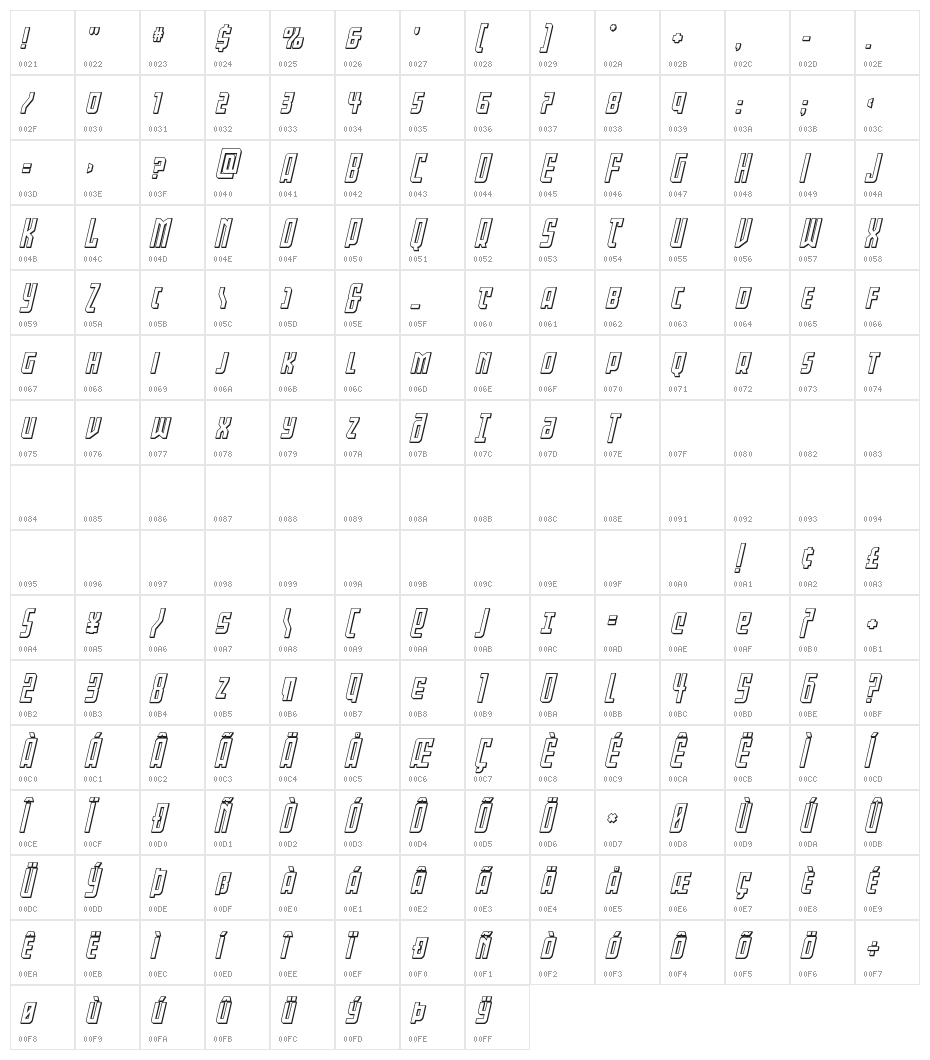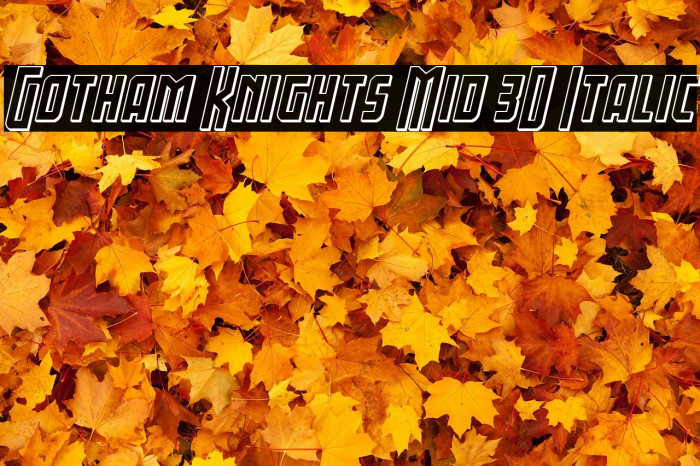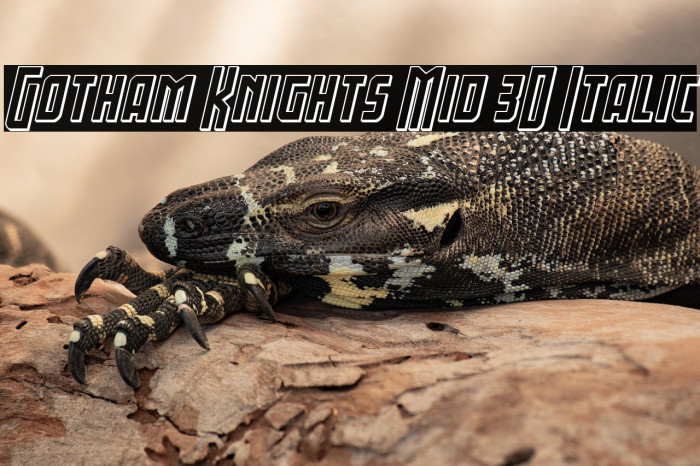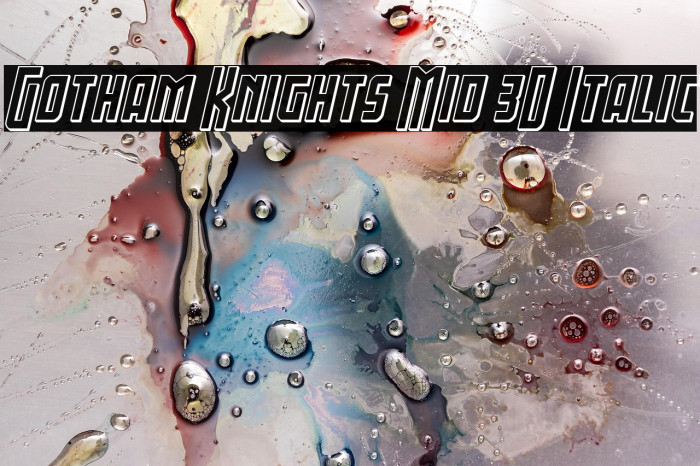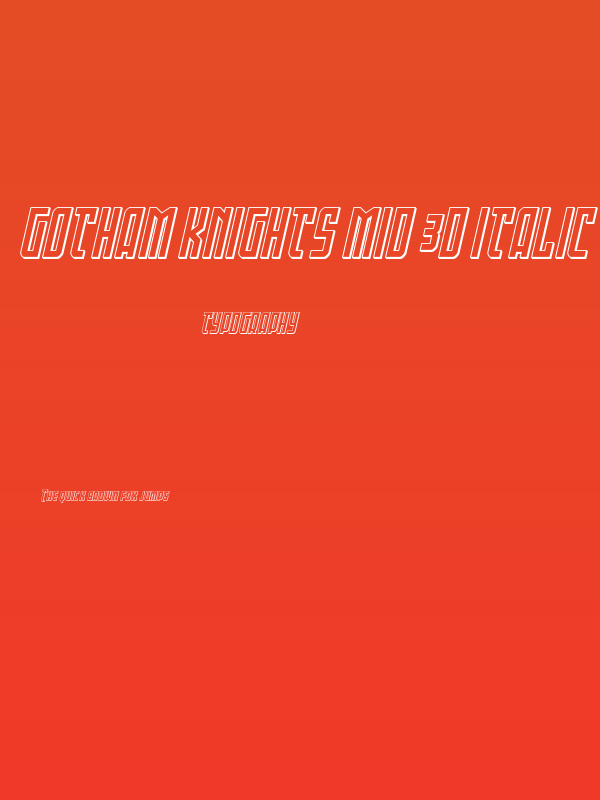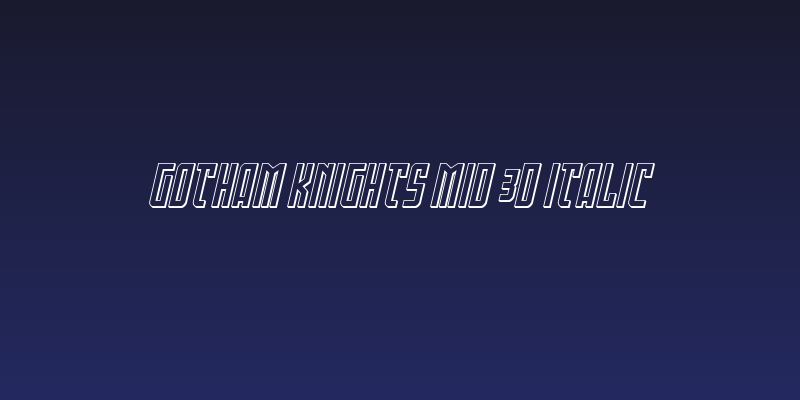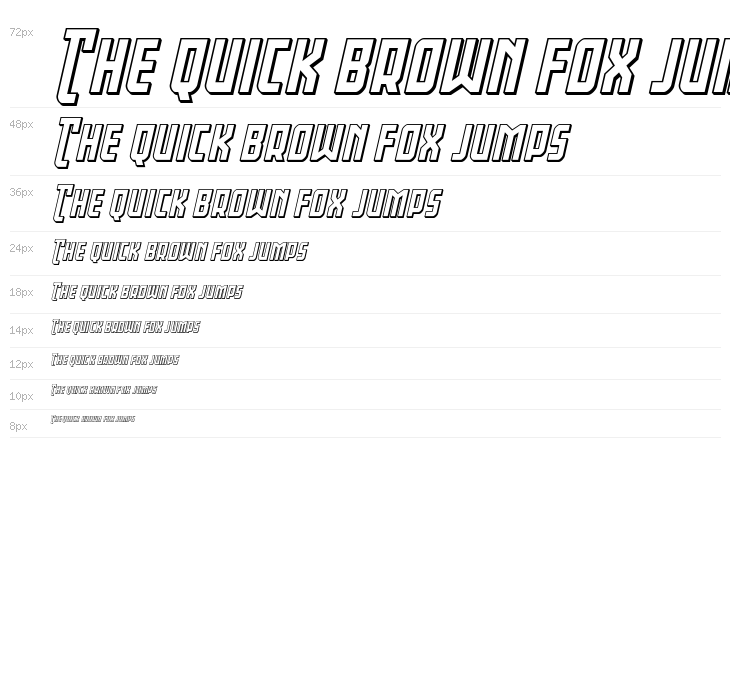
Gotham Knights Mid 3D Italic Font
Gotham Knights Mid 3D Italic Description
This font features a bold, three-dimensional style with a distinct italic slant, giving it a dynamic and modern appearance. The characters are outlined, creating a shadow effect that enhances the 3D illusion. The uppercase letters are angular and geometric, with sharp edges and a consistent stroke width. The numerals and special characters maintain the same bold and italicized style, ensuring uniformity across all glyphs. This font's unique design makes it stand out, ideal for projects that require a strong visual impact.
| Proposed Projects | Ideal for video game titles, movie posters, or any project needing a futuristic and bold aesthetic. |